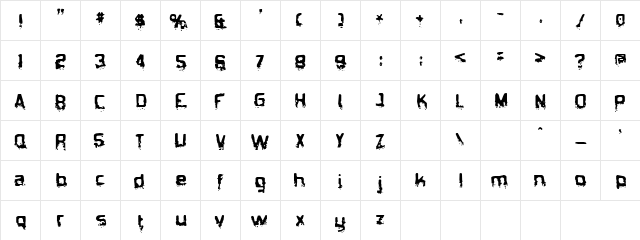
Lake Shore Sight Regular
Design Context for Lake Shore Sight Typeface
Lake Shore Sight is a composed and adaptable typeface that performs quietly and consistently across a wide range of design contexts.